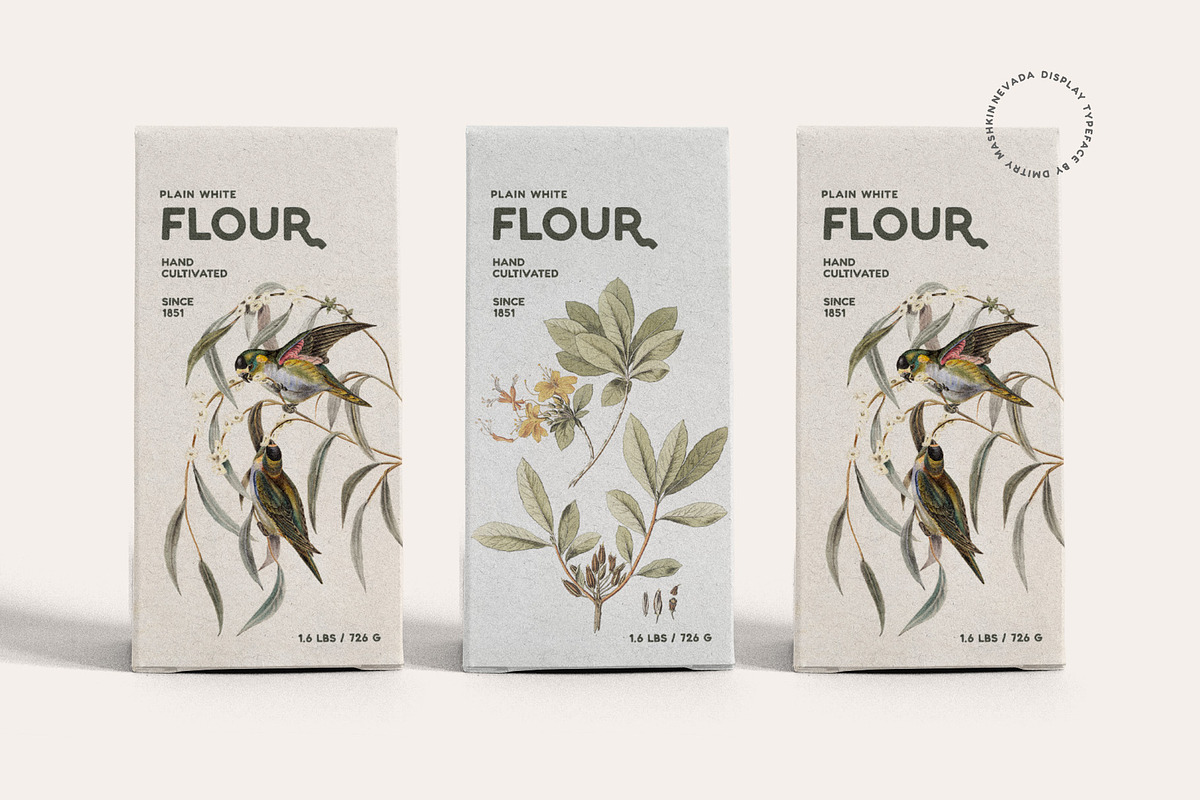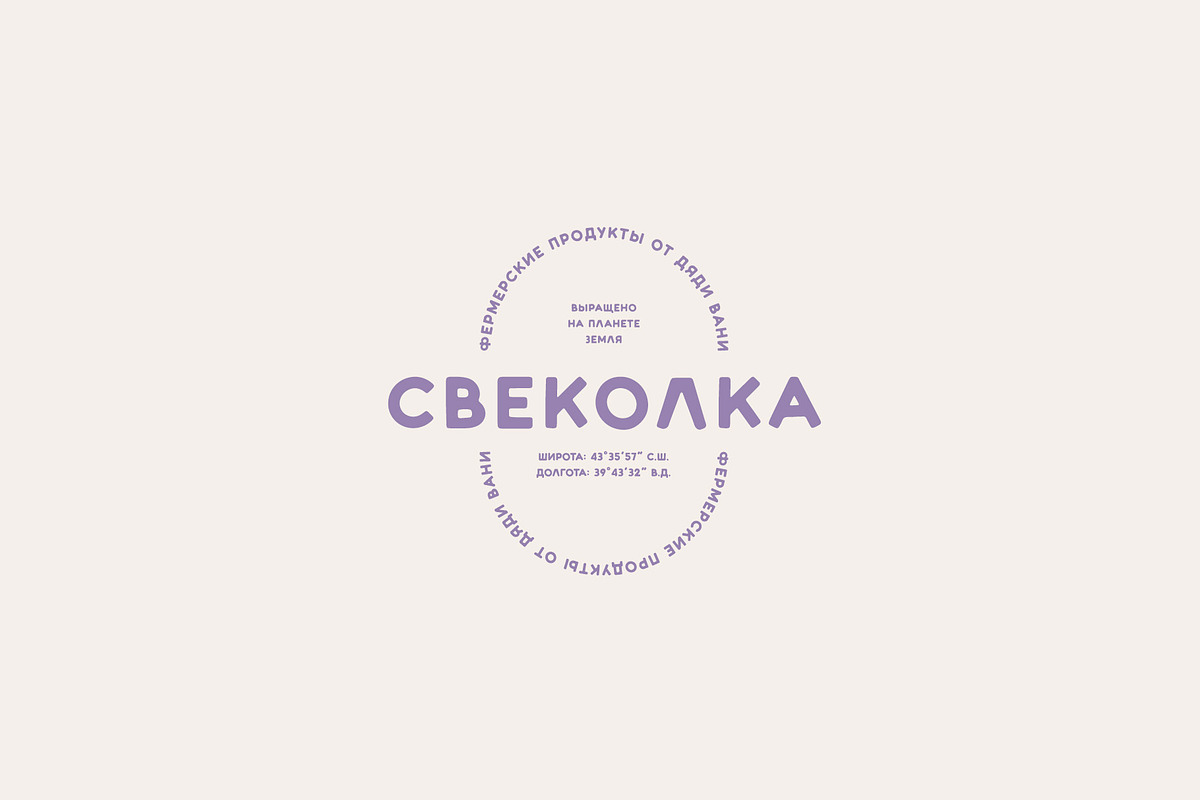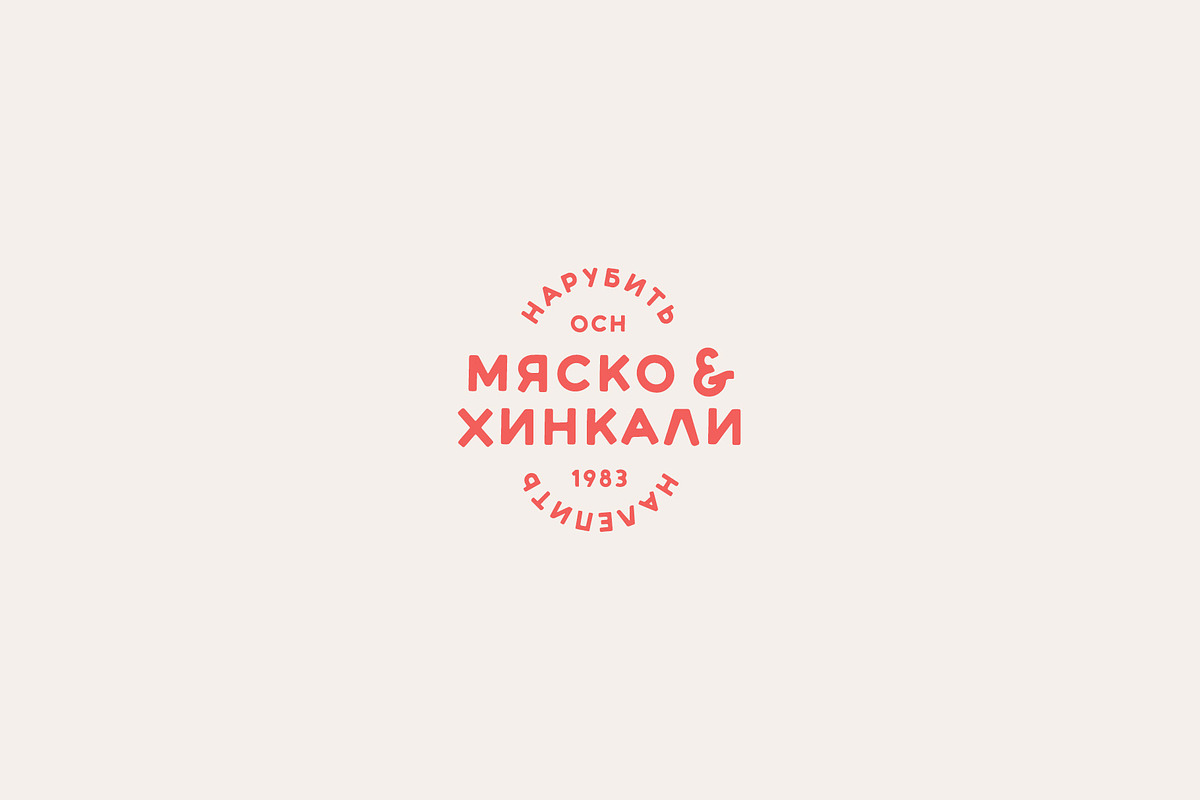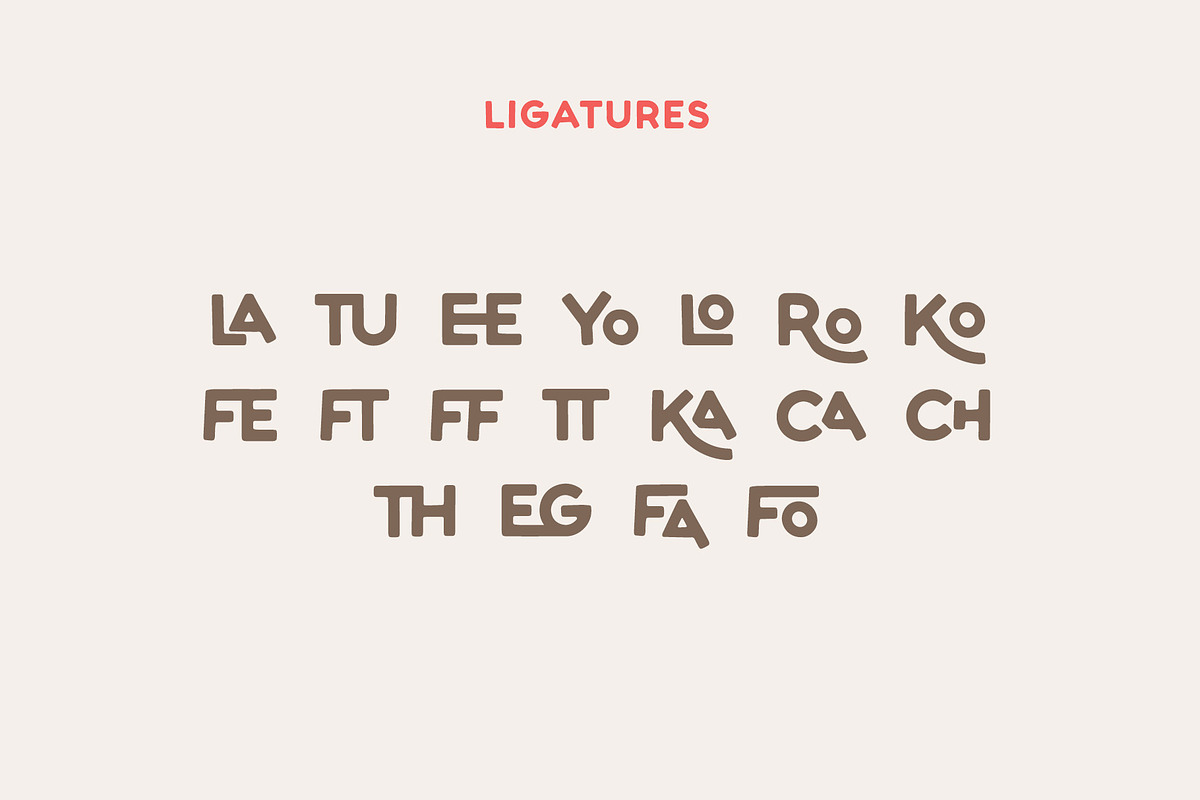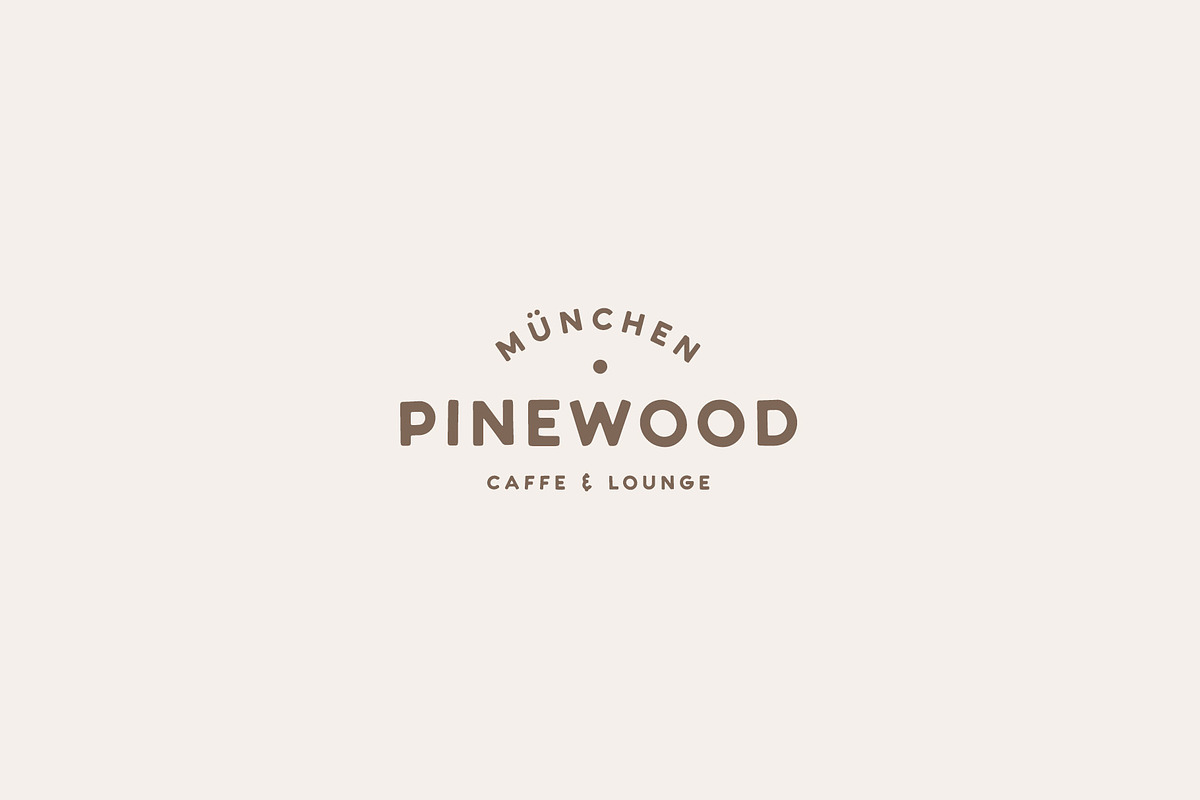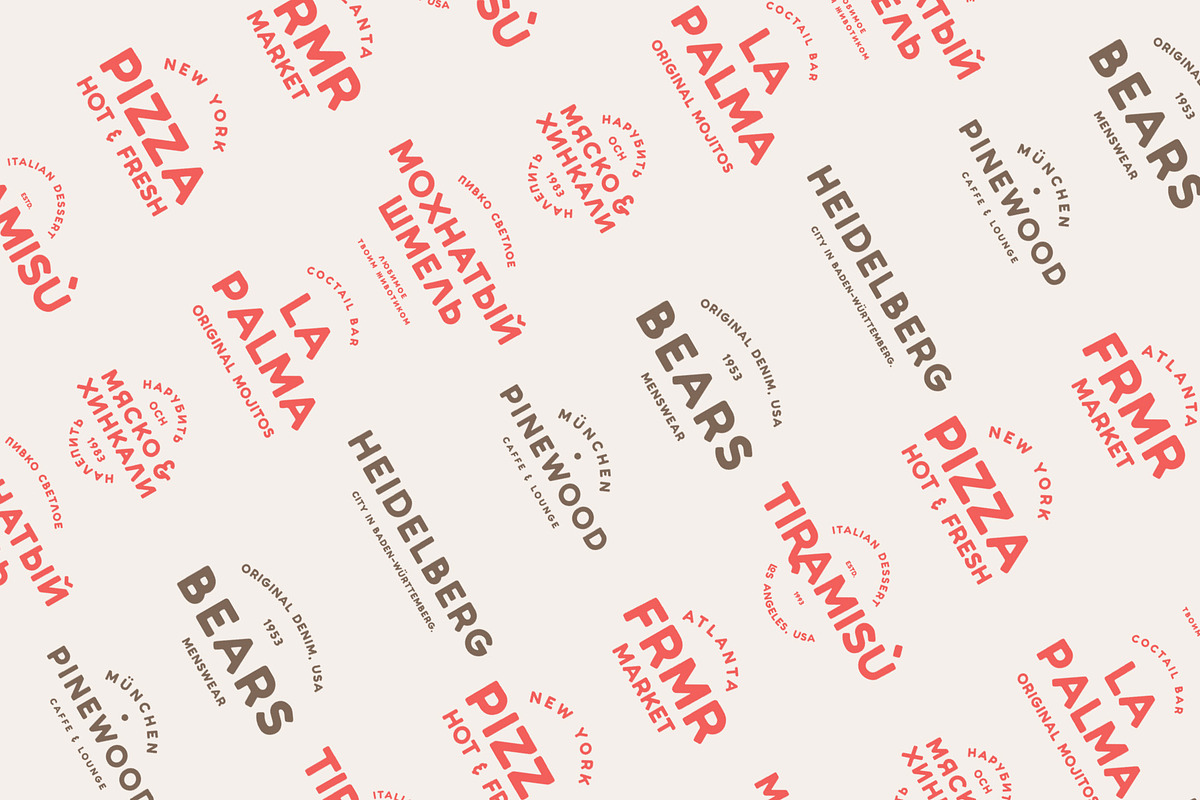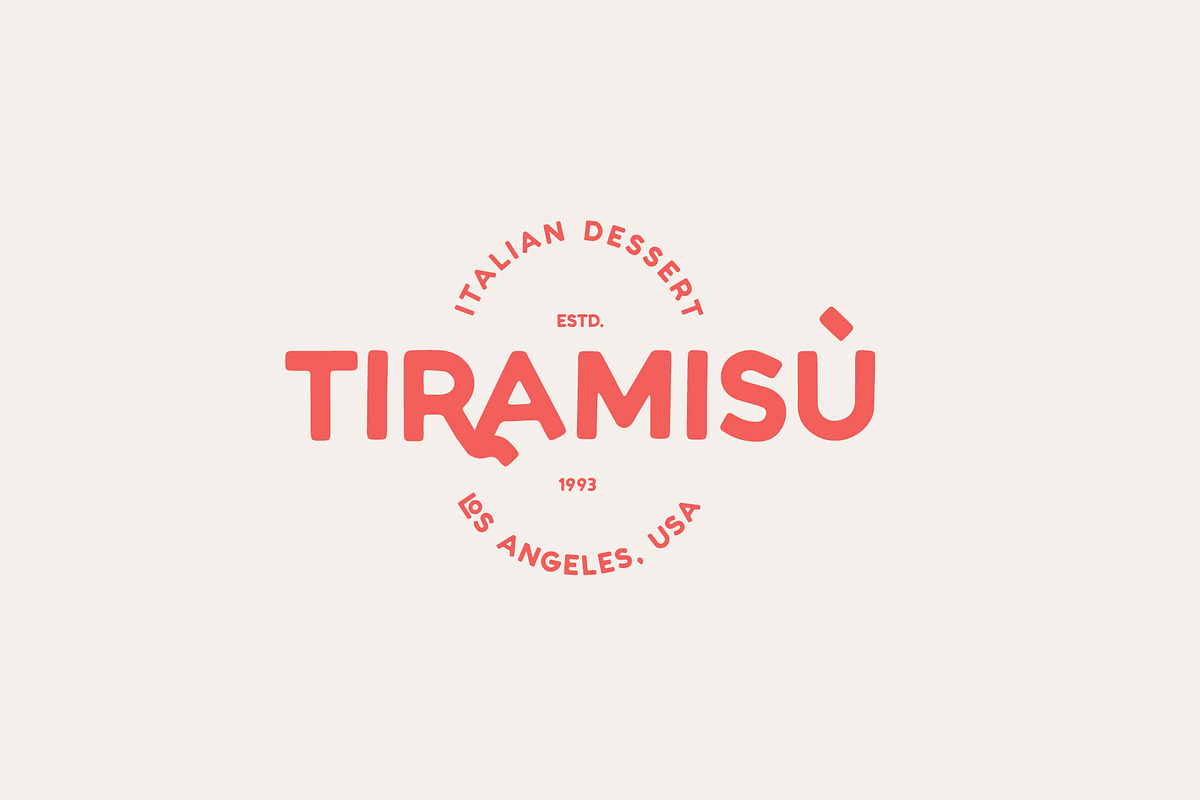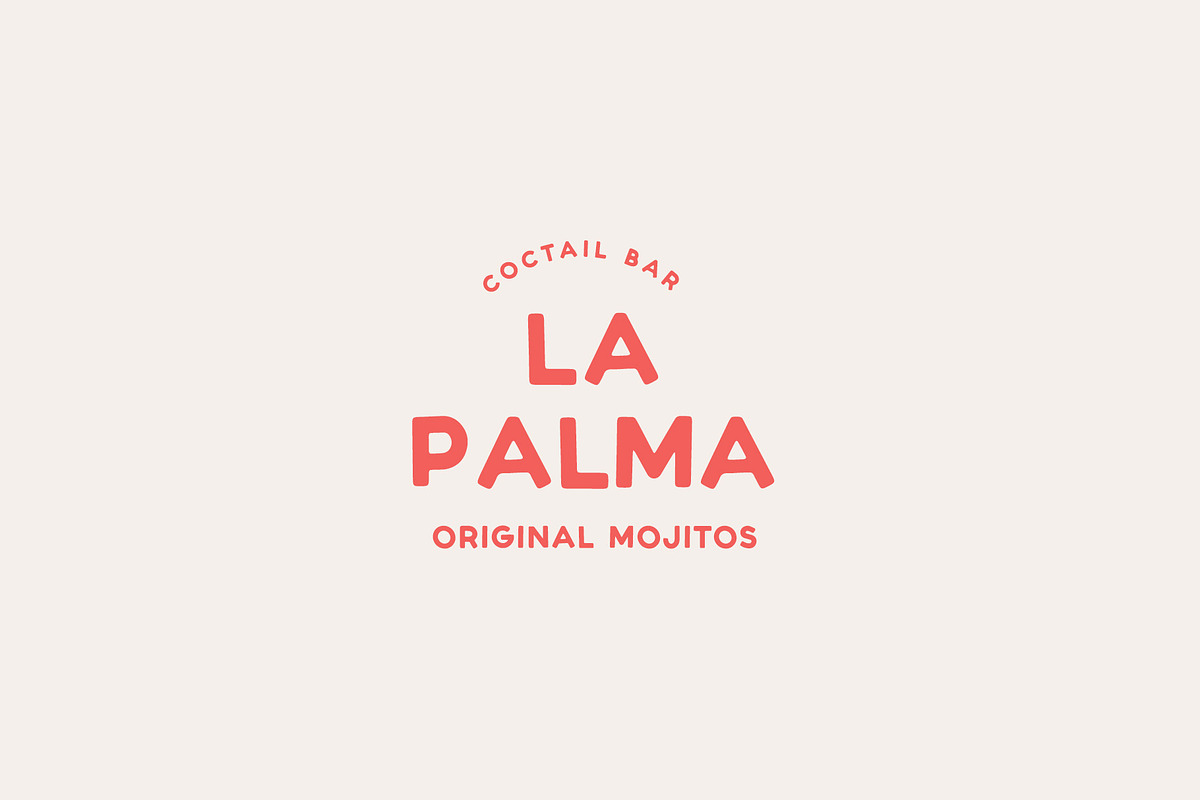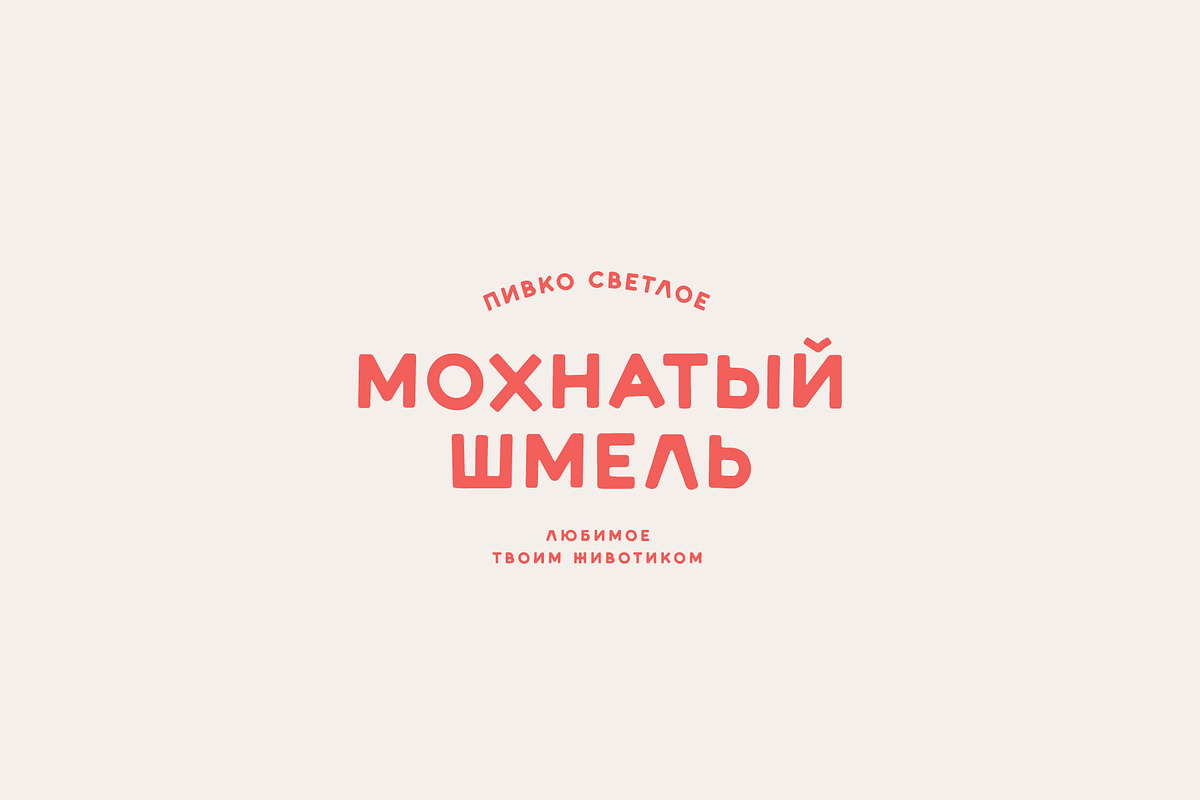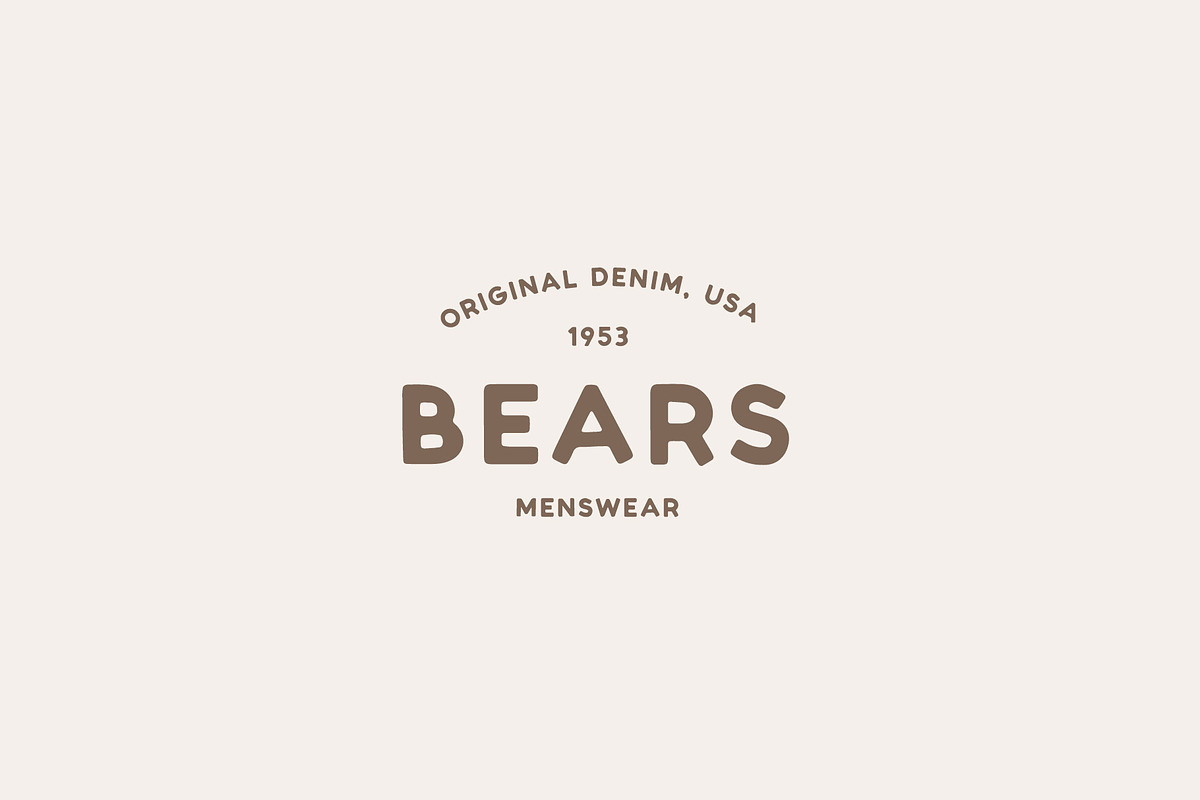
Nevada Retro Hand-Drawn Display Font
Nevada is a bold hand-drawn display typeface inspired by vintage American signs, classic packaging, and friendly mid-century branding. Its rounded, imperfect letterforms bring warmth and personality to designs while remaining clear and highly recognizable.
Uppercase Latin and Cyrillic alphabets
Extended Latin language support
Numerals and punctuation
Contextual alternates
More than 18 custom ligatures
One carefully crafted regular style
Nevada is ideal for retro logos, food and beverage branding, packaging, apparel, posters, greeting cards, labels, signage, social media graphics, and bold quotes. Use the ligatures and alternates to create distinctive wordmarks that retain a natural hand-drawn rhythm.